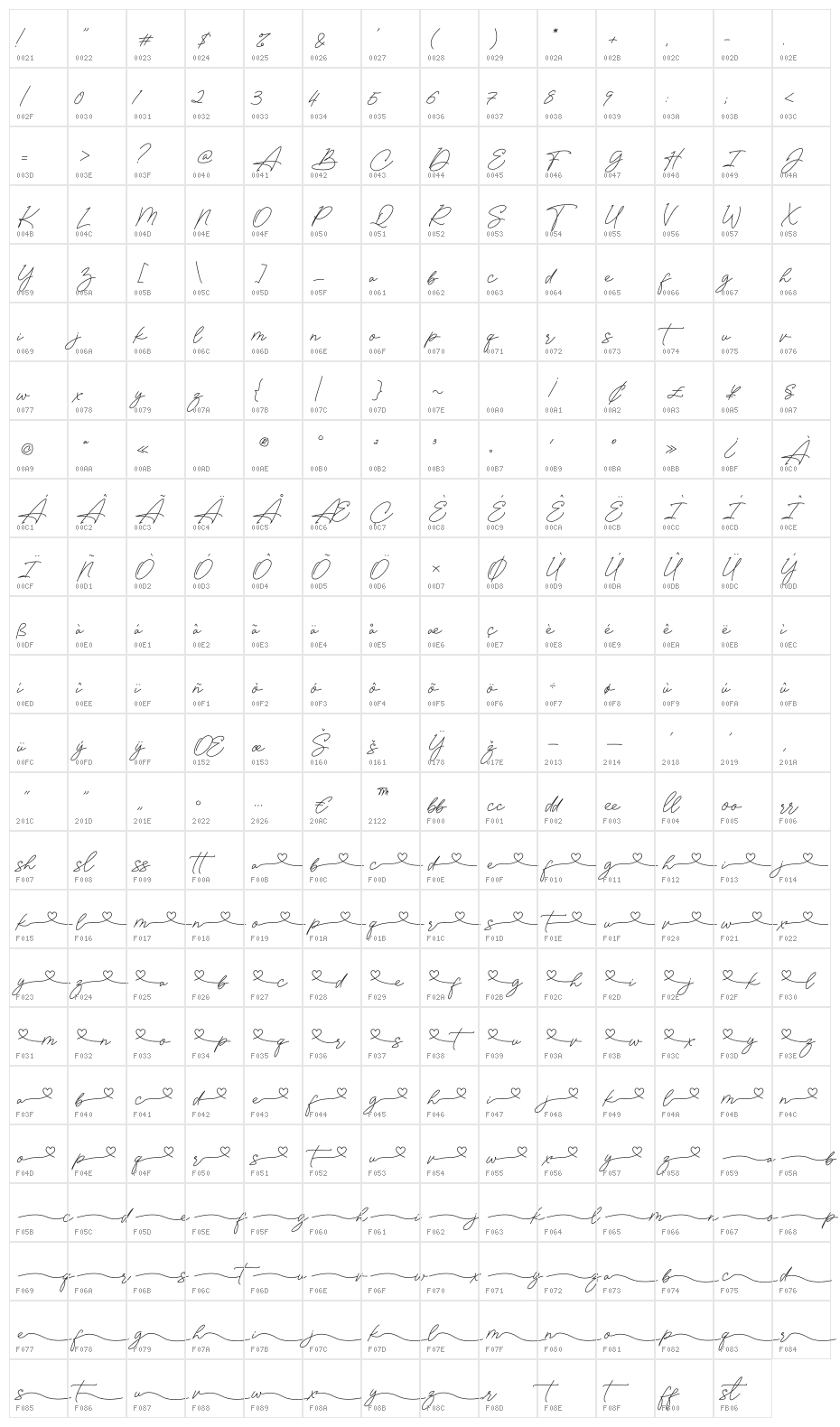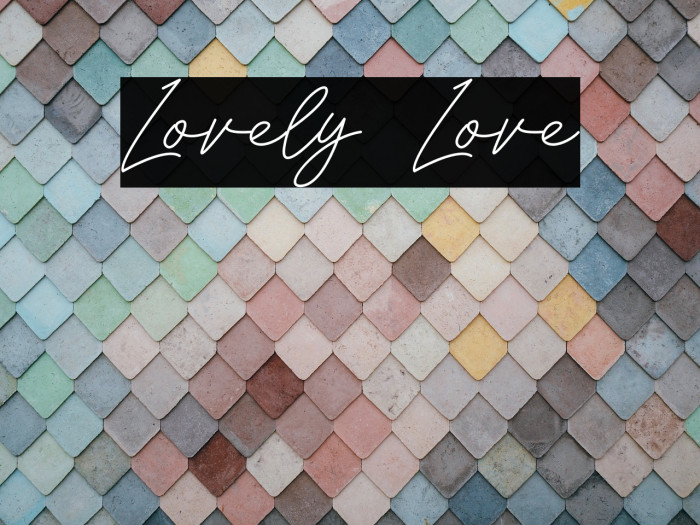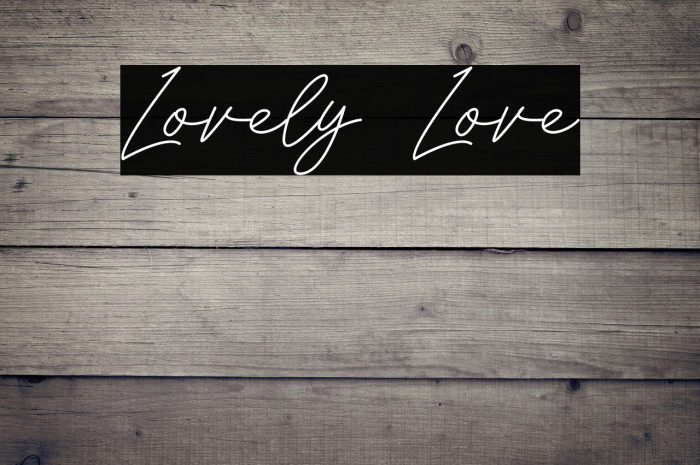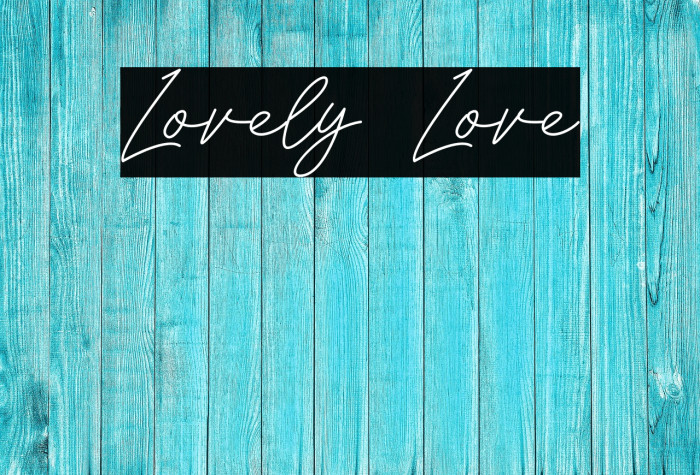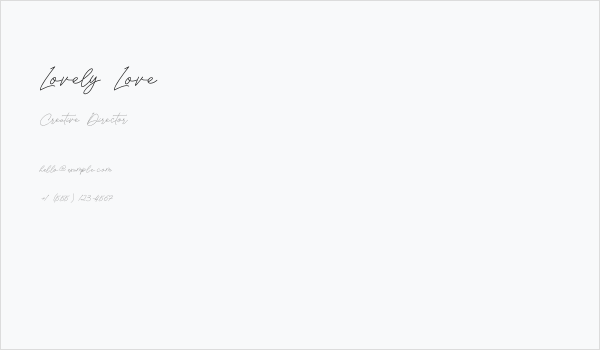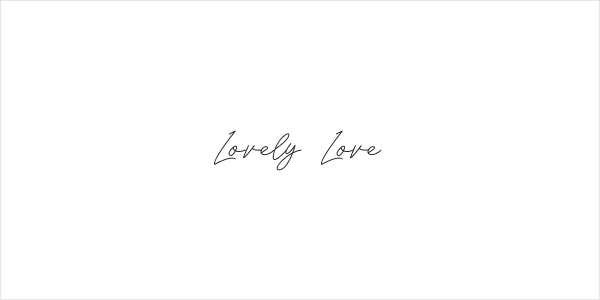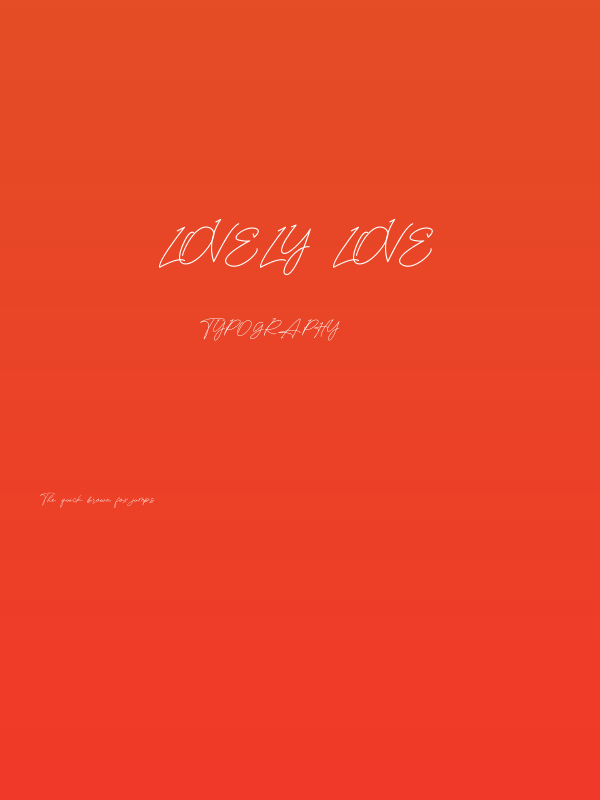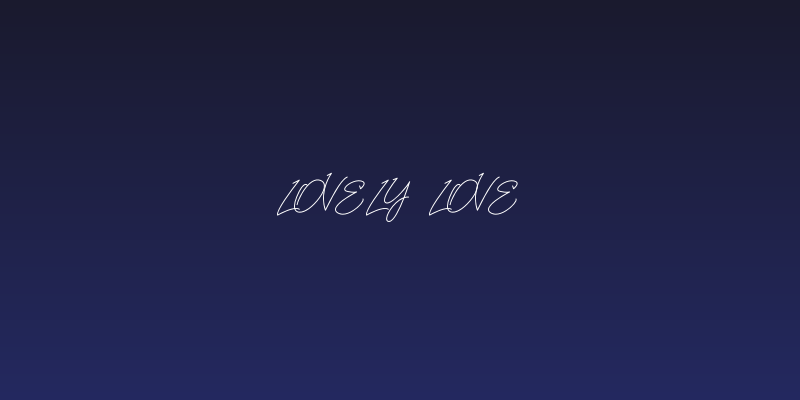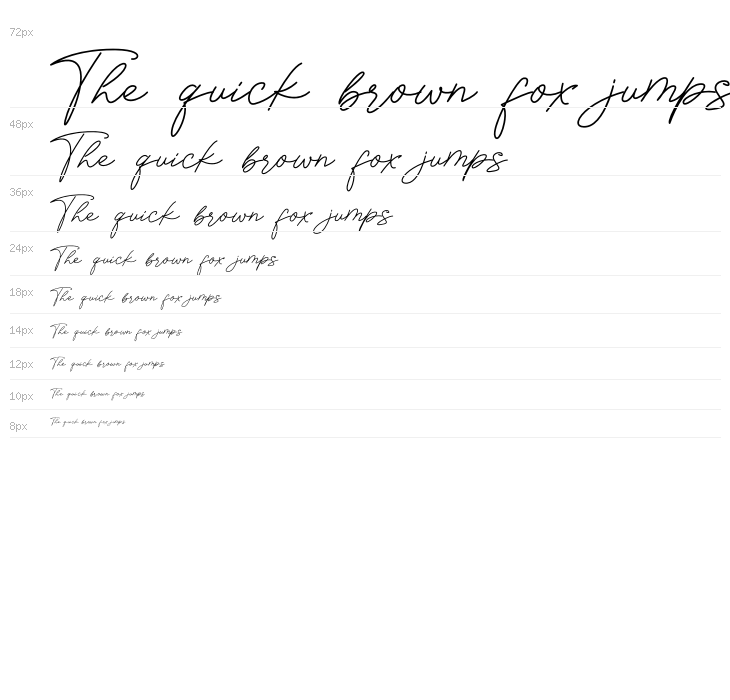
Lovely Love Font
Lovely Love Description
This font exudes elegance and fluidity, characterized by its cursive, handwritten style. The letters are connected in a smooth, flowing manner, reminiscent of classic calligraphy. Each character is crafted with a delicate touch, featuring thin, graceful lines that convey a sense of sophistication and romance. The uppercase letters are slightly more elaborate, with sweeping curves and loops, while the lowercase letters maintain a consistent, harmonious flow. The numerals and special characters are designed to complement the overall aesthetic, ensuring a cohesive look across all text. This font is perfect for projects that require a personal, intimate touch, such as invitations, greeting cards, and branding materials.
| Overall Style | Romantic, Elegant |
| Use Case | Invitations, Greeting cards, Branding |
| Proposed Projects | Ideal for wedding invitations, personal stationery, branding, and romantic-themed designs. |